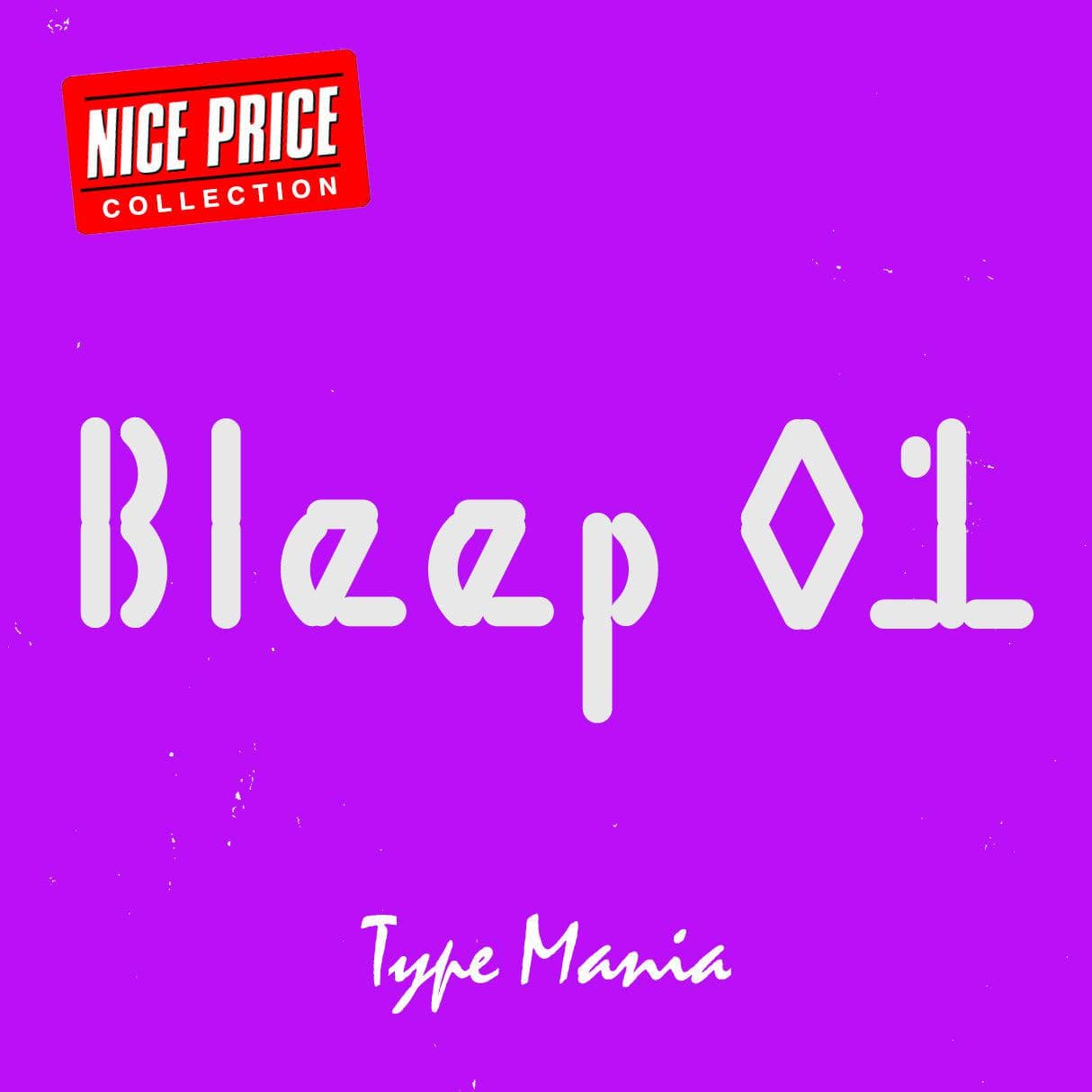
<p>Explore the digital avant-garde with <strong>Bleep 01 TM</strong>, an experimental typeface that transcends the conventional limits of creativity and innovation 🤖 Whether you are a designer, developer, or digital artist, <strong>Bleep 01 TM</strong>offers a unique mix of modern aesthetics and cozy retro feels, perfect for projects that call for a distinctive visual identity 🤌🤌</p> <p><strong>Zip includes</strong></p> <ul> <li>OTF file</li> <li>TTF file</li> <li>WOFF2 file</li> </ul> <p><strong>Languages</strong></p> <ul> <li>Basic Latin</li> <li>Western European</li> <li>Euro</li> <li>Central European</li> <li>Pan African Latin</li> </ul> <p><em>Graphic Design is Easy (with Type Mania)®</em></p>